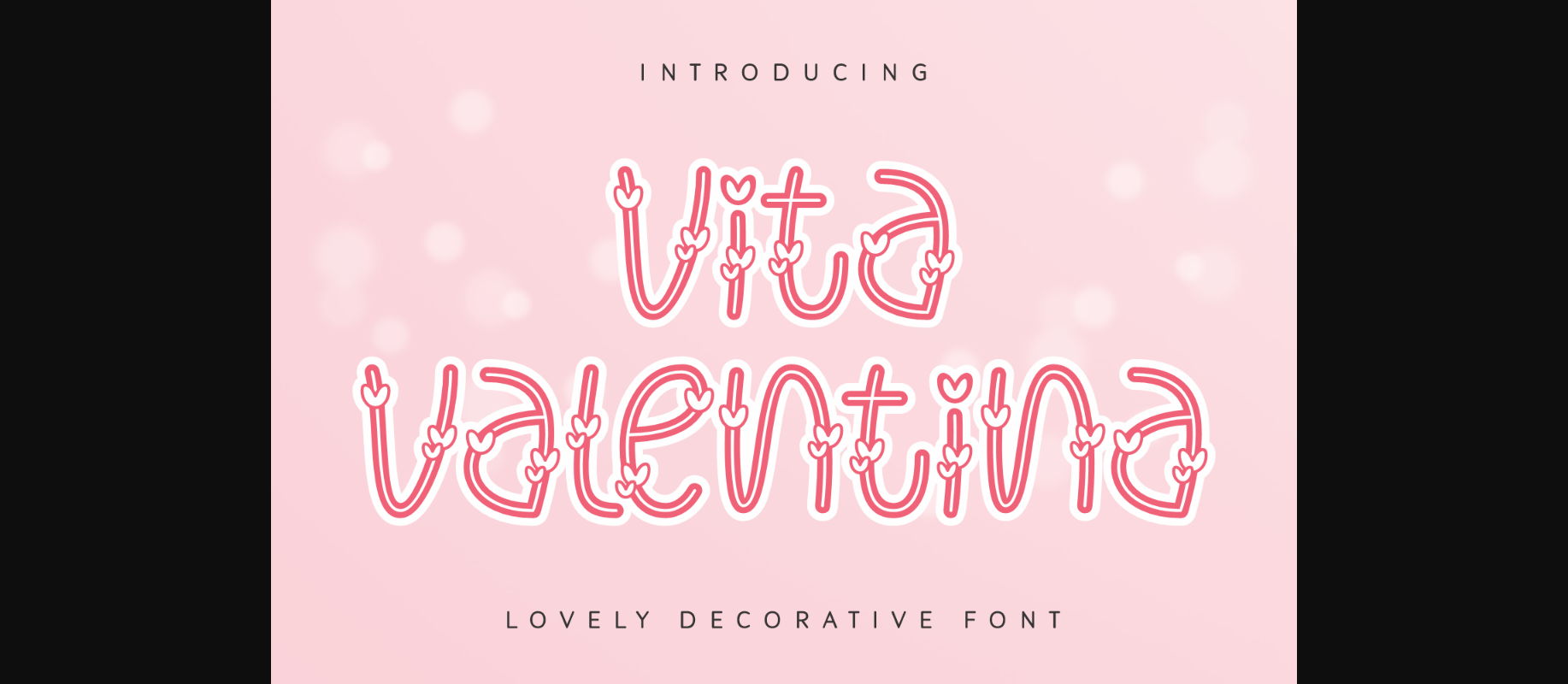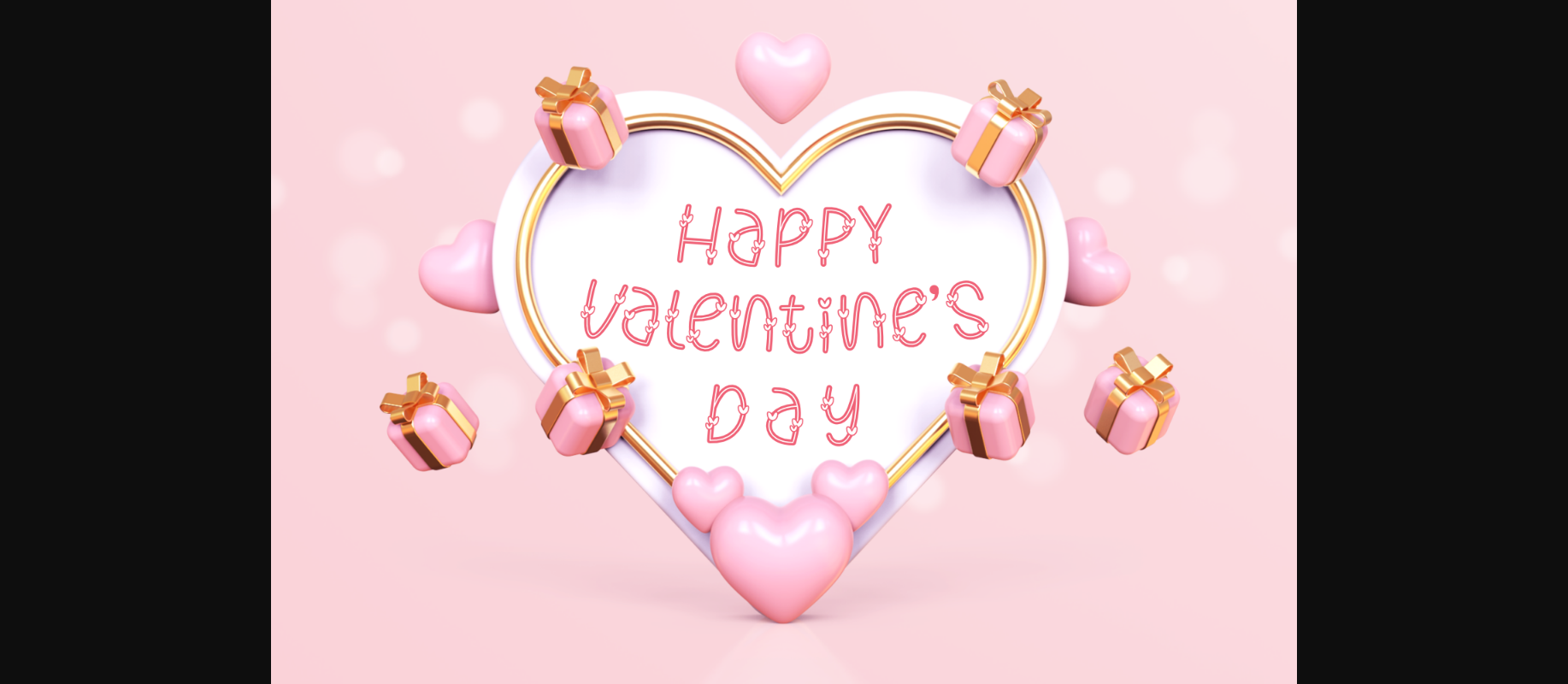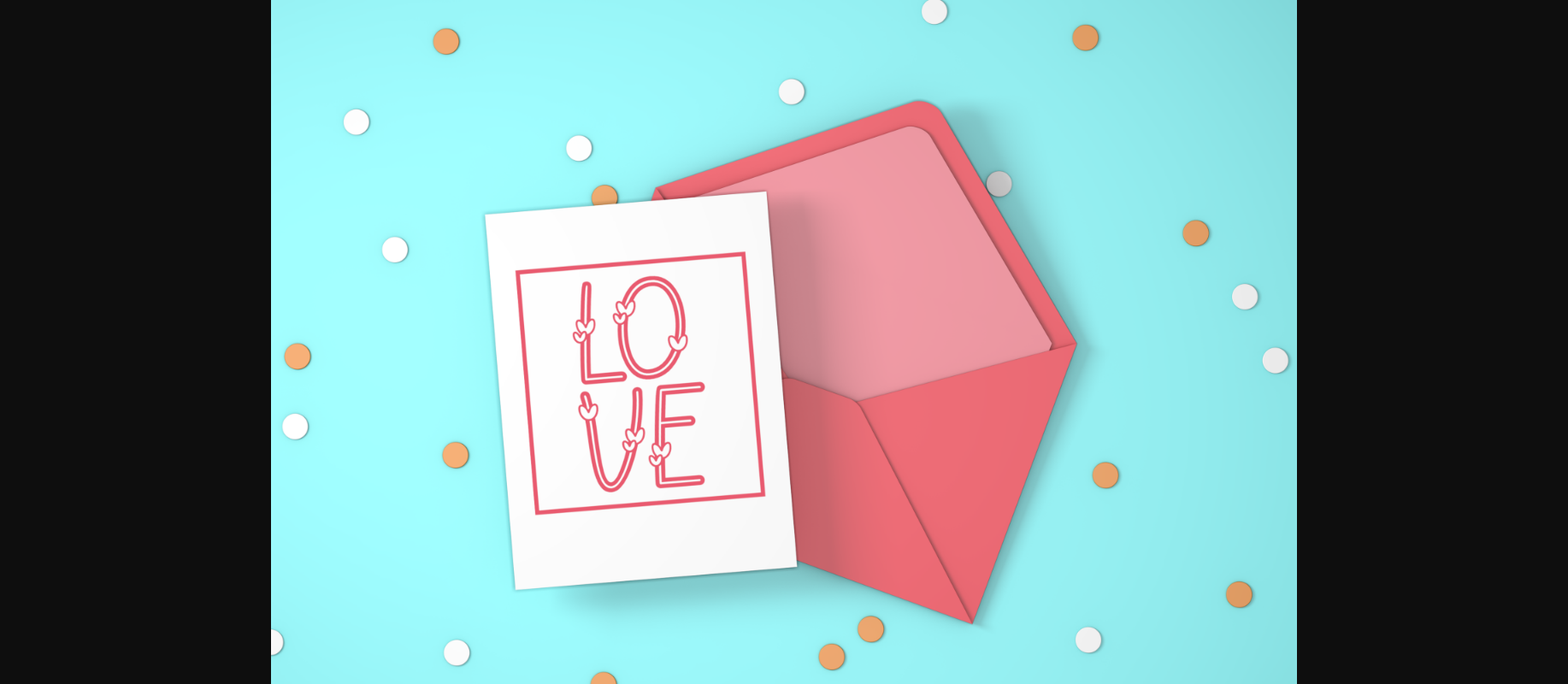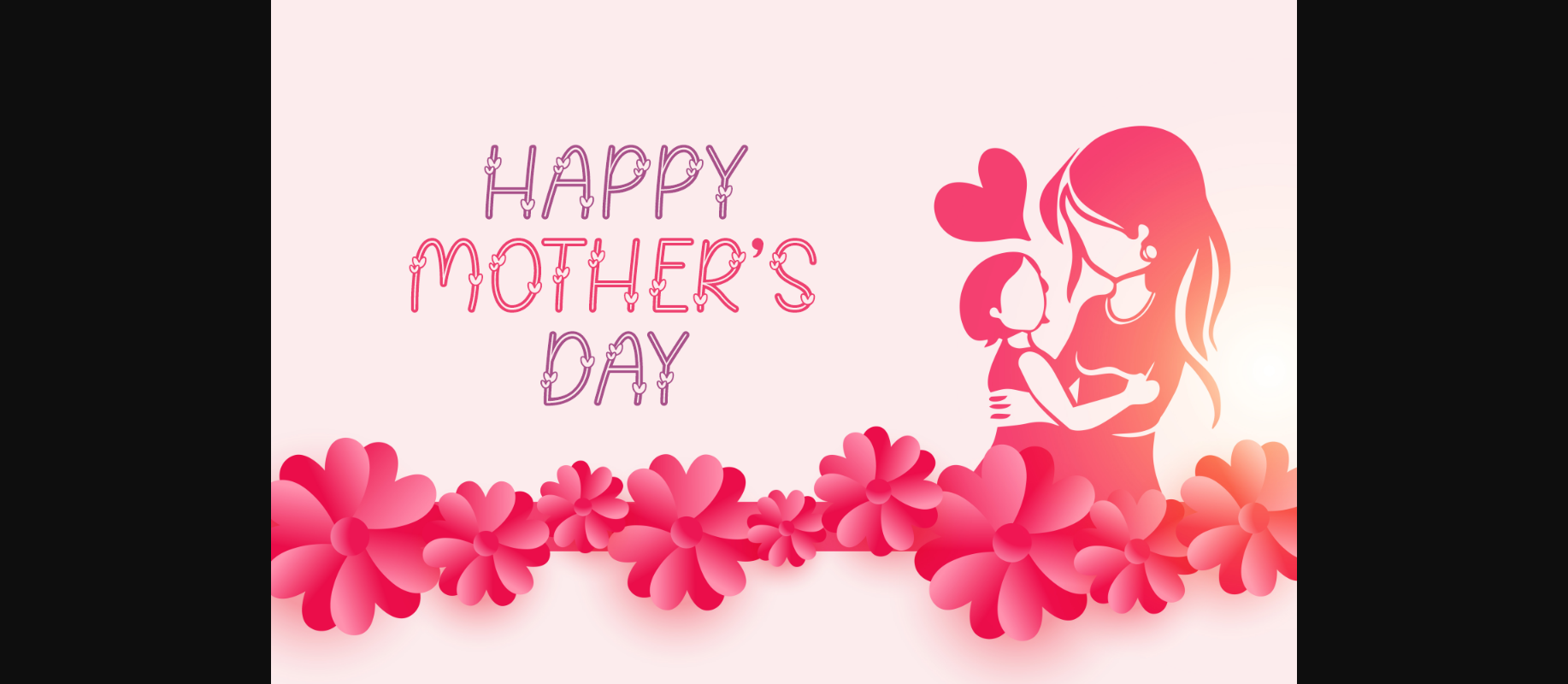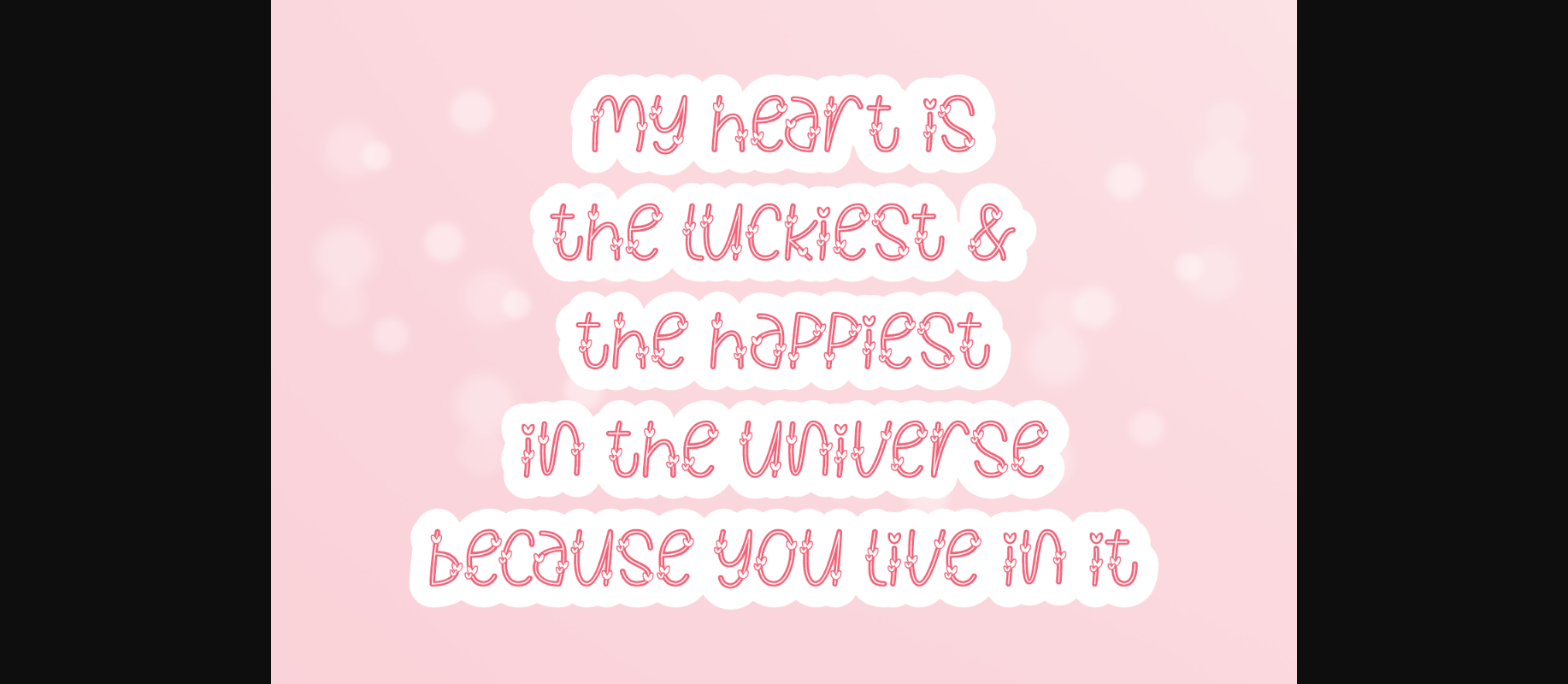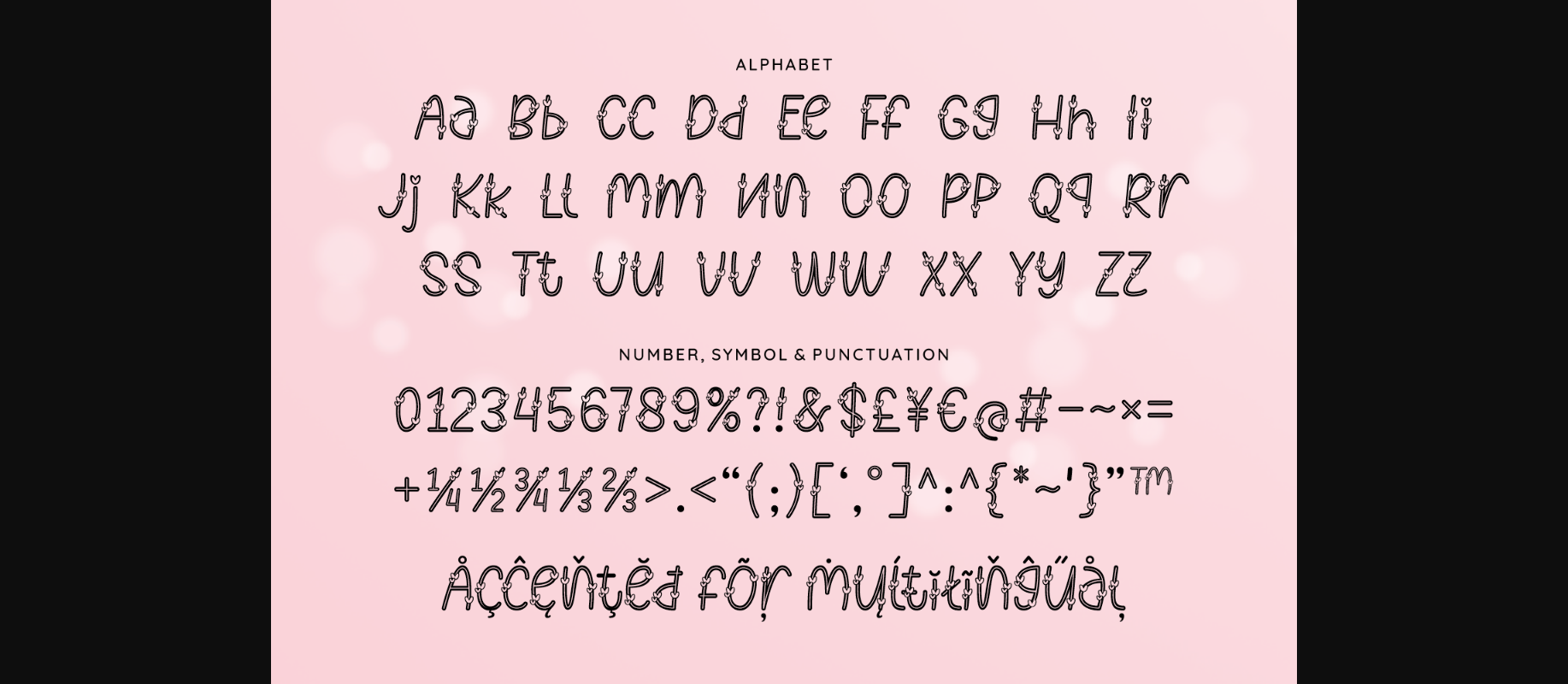
About Vita Valentina Font
Vita Valentina is a sweet decorative font with cute little heart details. Add a cute romantic note to your typography designs with this lovely typeface that will elevate any creation. Give it a try in your next creative project!